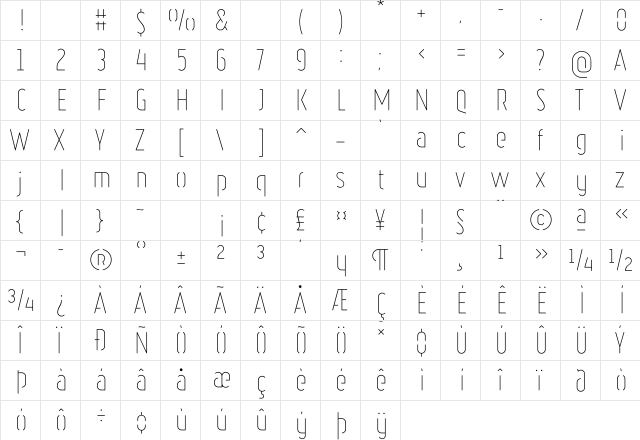
Ruler Stencil Thin Regular
Design Context for Ruler Stencil Thin Typeface
Ruler Stencil Thin has the rough pragmatism of spray-painted stencil signage, adding a raw, street-level authenticity to designs. The delicate stroke weight brings airiness and refinement to layouts.
Ideal for industrial branding, streetwear, military-adjacent aesthetics, and urban signage projects.
Pro Tip: Pair Ruler Stencil Thin with raw, utilitarian design elements — exposed concrete textures, flat colour, and minimal ornamentation suit it well.